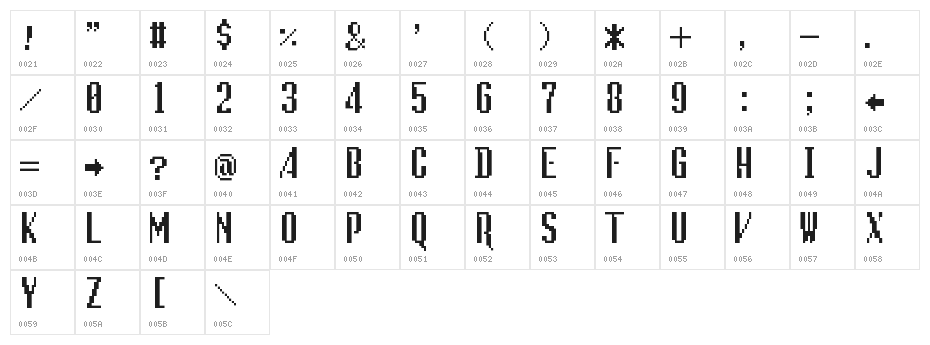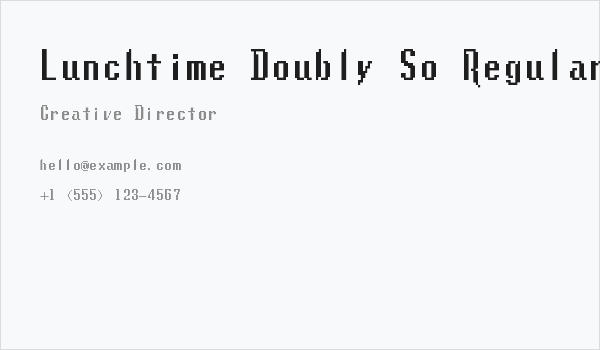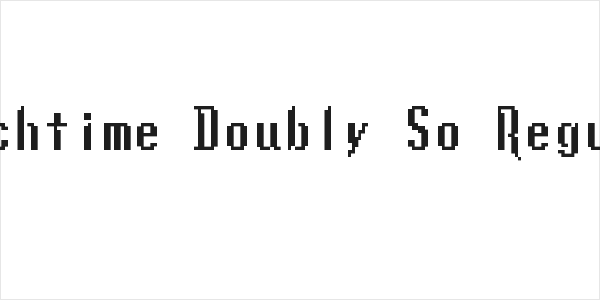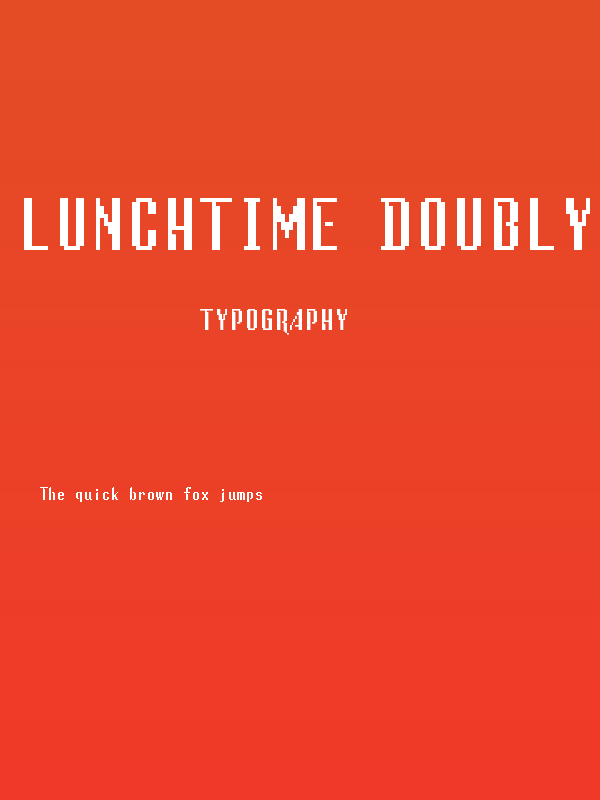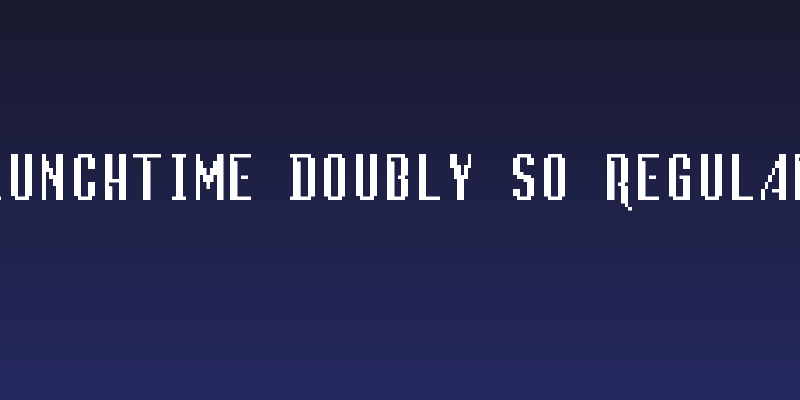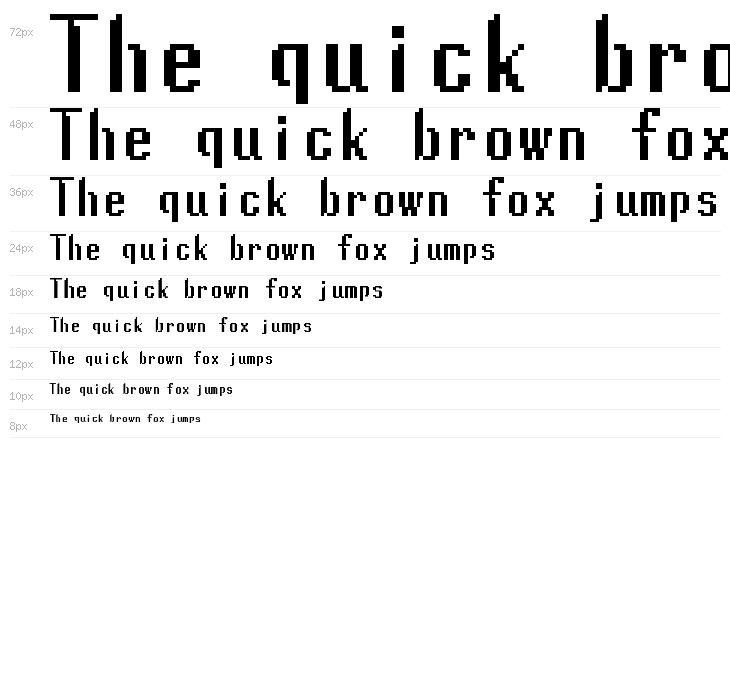
Lunchtime Doubly So Regular Font
Lunchtime Doubly So Regular Description
This font features a bold and striking design with a pixelated, blocky appearance. The characters are uniformly structured, giving it a digital, retro feel reminiscent of early computer graphics or video game typography. The uppercase letters are tall and imposing, while the lowercase letters maintain the same width, ensuring consistency across the board. Numbers and special characters follow the same stylistic cues, making them easily recognizable and cohesive with the rest of the set. The overall design is clean and straightforward, with a modern twist on a vintage aesthetic.
| Overall Style | Retro, Digital |
| Proposed Projects | Ideal for video game design, digital art projects, retro-themed posters, and tech-related branding. |